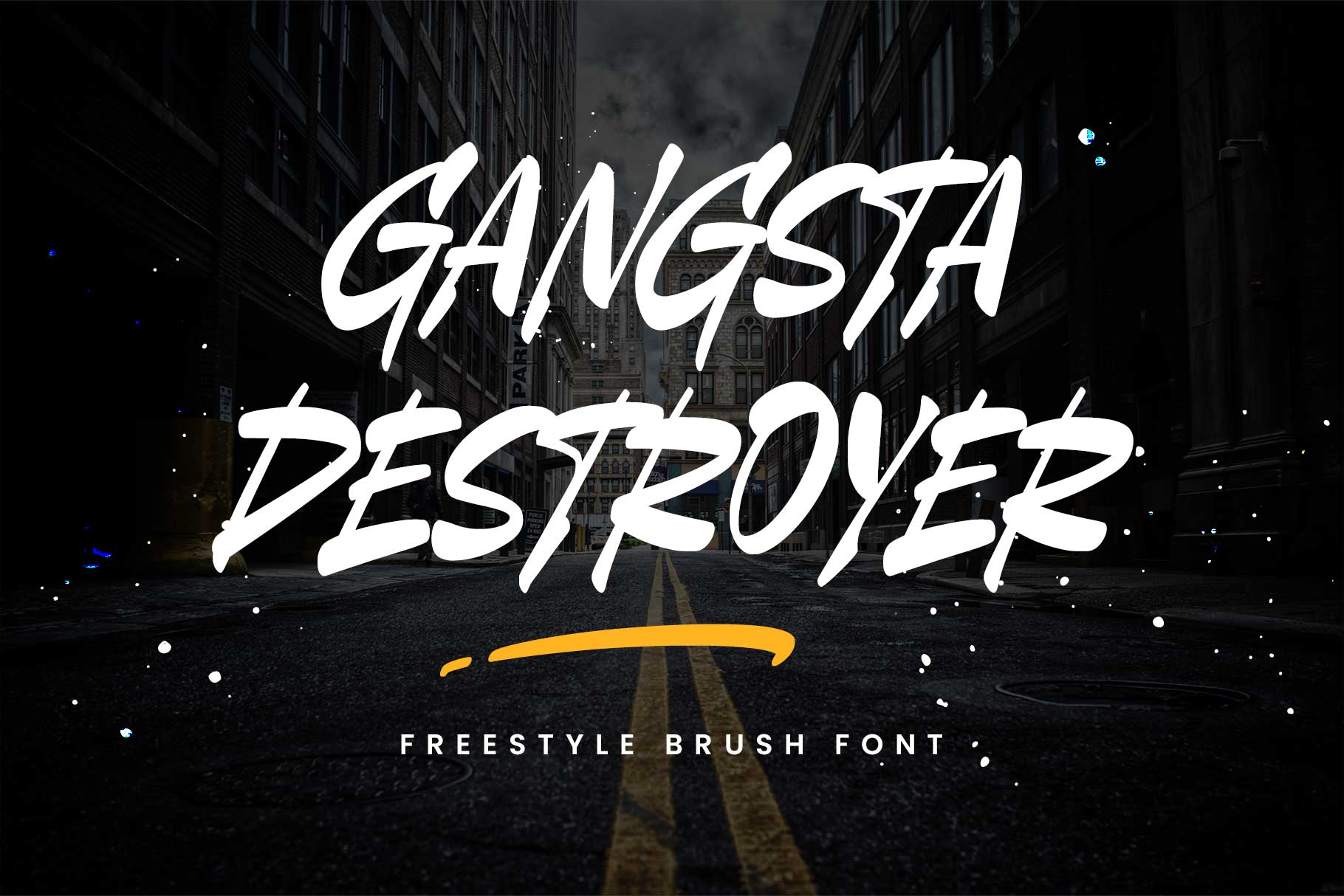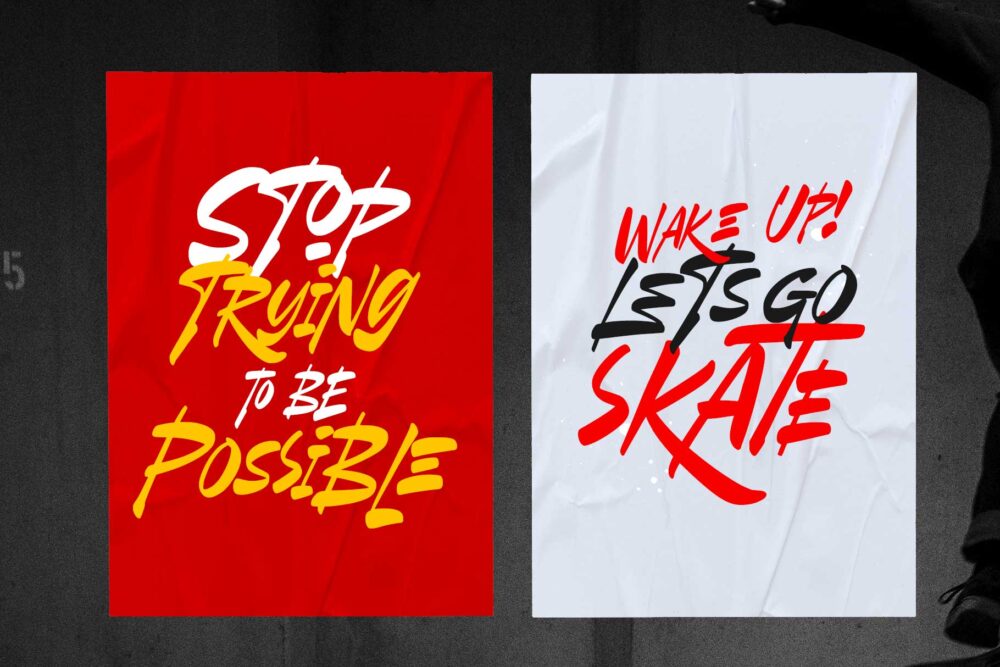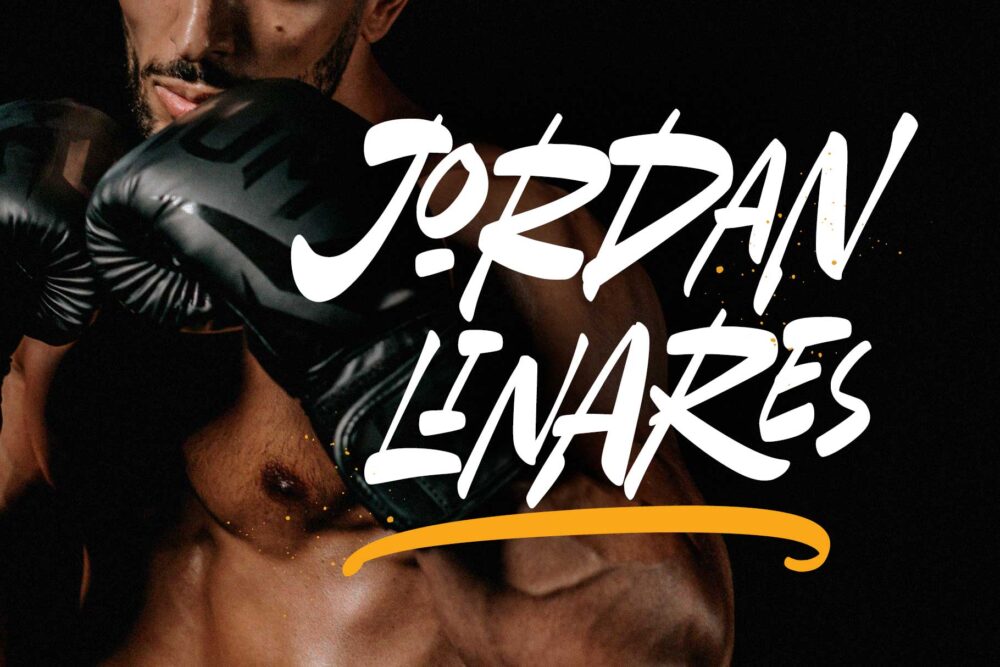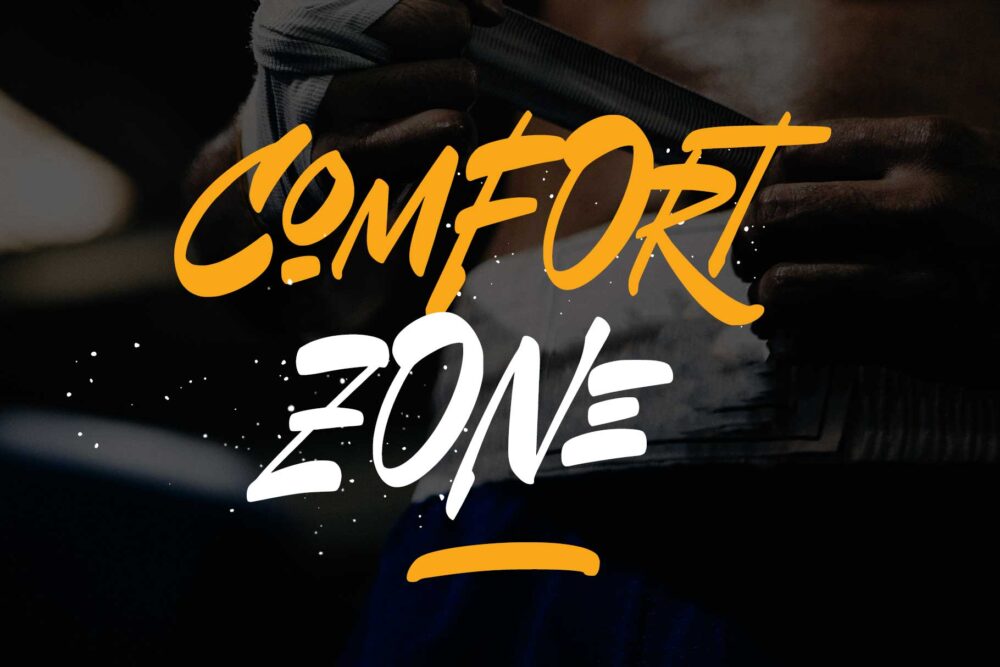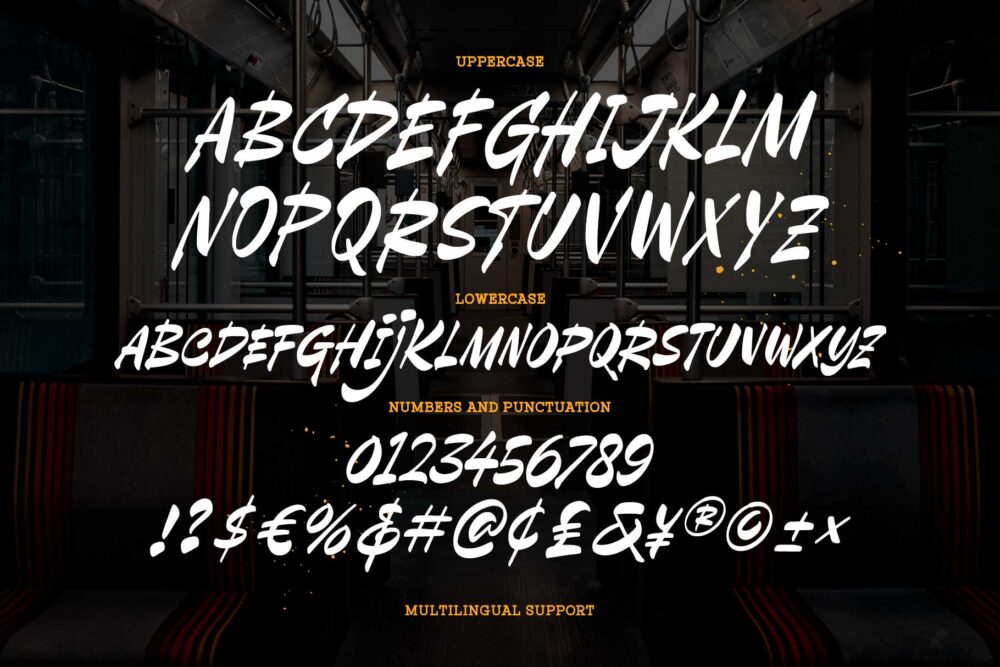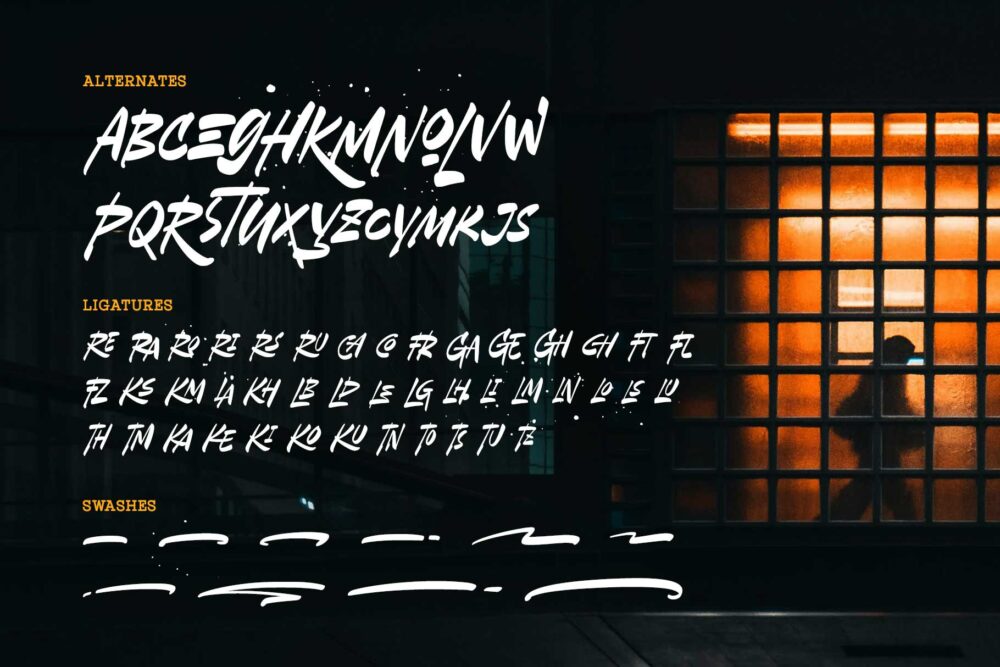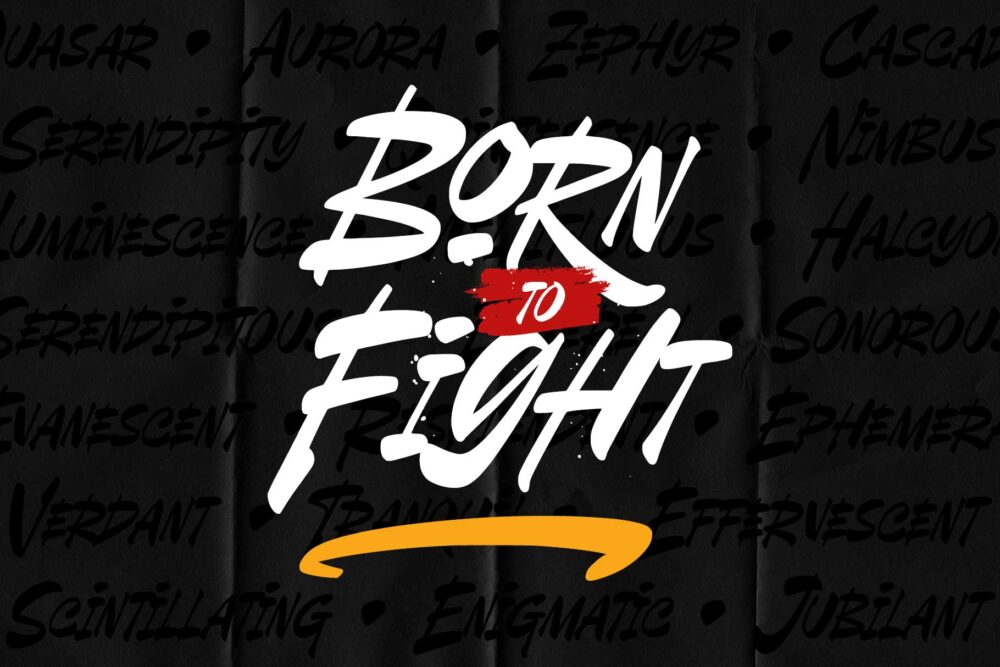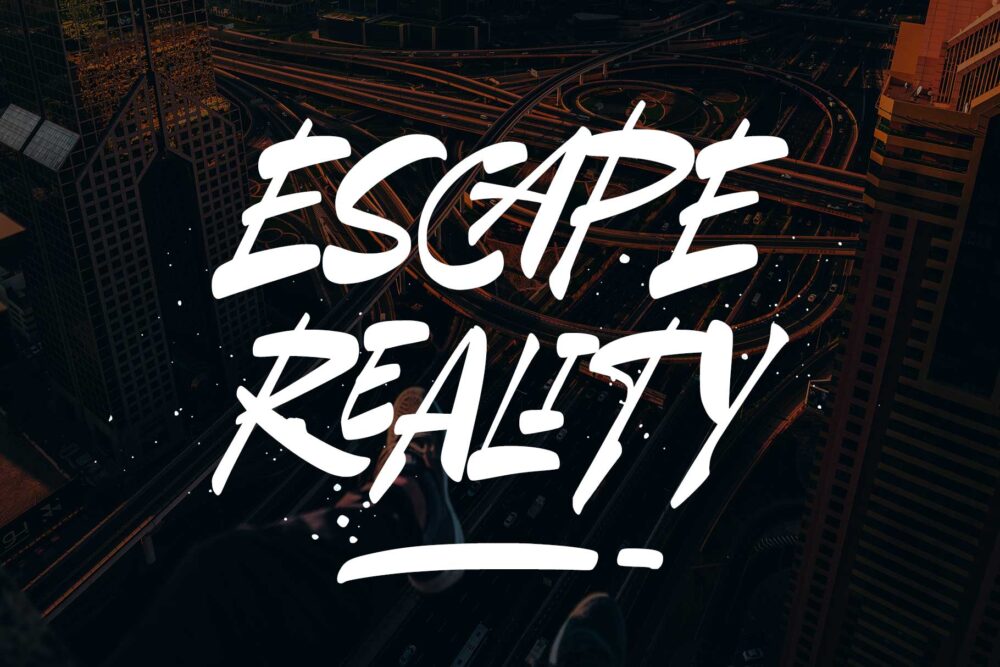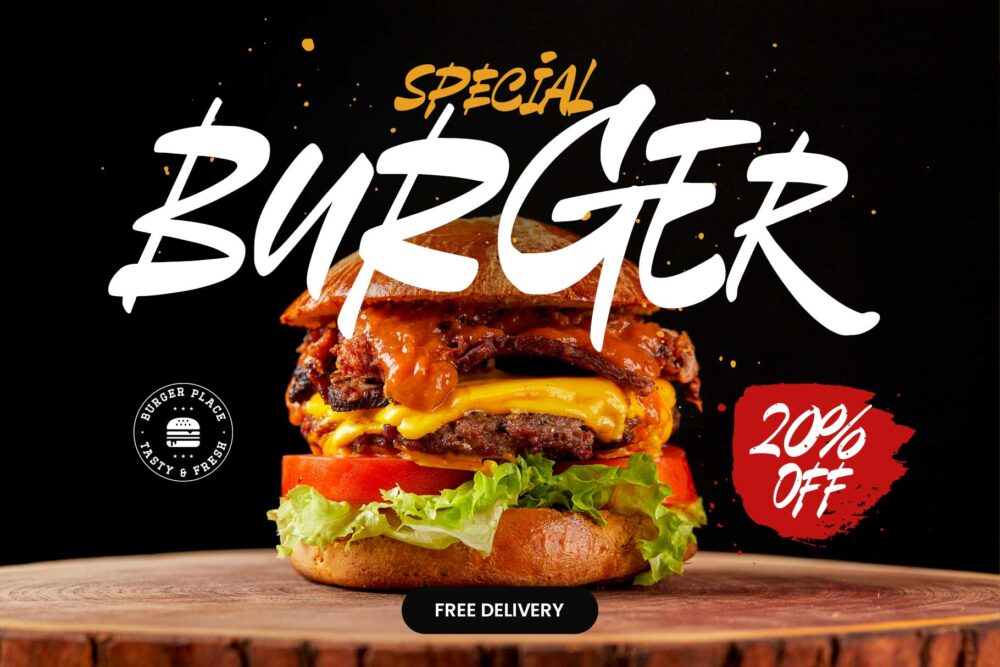
Gangsta Destroyer
Gangsta Destroyer is a freestyle brush font with bold strokes and real handwriting. Inspired by urban style and sports, This font offers a bursting energy. Equipped with various special characters that you can mix and match to make your design look fearless
Gangsta Destroyer is strong, fast, and brave which allows you to create a playful dynamic design. Perfect for challenging jobs, logo, logotype, motion graphics, promotion, hoodies, t-shirts, packaging, stickers, short quotes, slogans, and anything that needs an energetic look.
• Uppercase
• Smallcaps
• Numbers & punctuation
• Symbols
• Stylistic Alternates
• Ligatures
• Swash
• Multilingual support